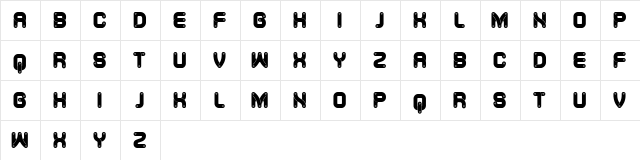
Canal Flat Regular
Design Context for Canal Flat Typeface
Canal Flat offers clean, dependable letterforms without strong stylistic allegiance, making it a practical choice for designers who need flexibility.
Pro Tip: Pair Canal Flat with a font of contrasting weight or personality to build a more expressive typographic hierarchy.